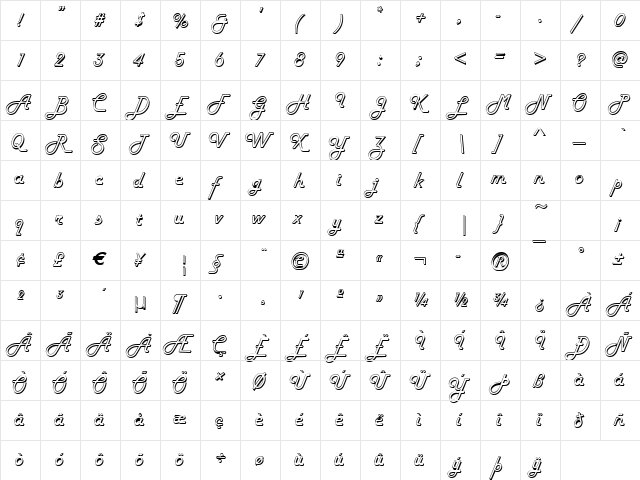
Harrogate Regular
Design Context for Harrogate Typeface
Harrogate is a composed and adaptable typeface that performs quietly and consistently across a wide range of design contexts.